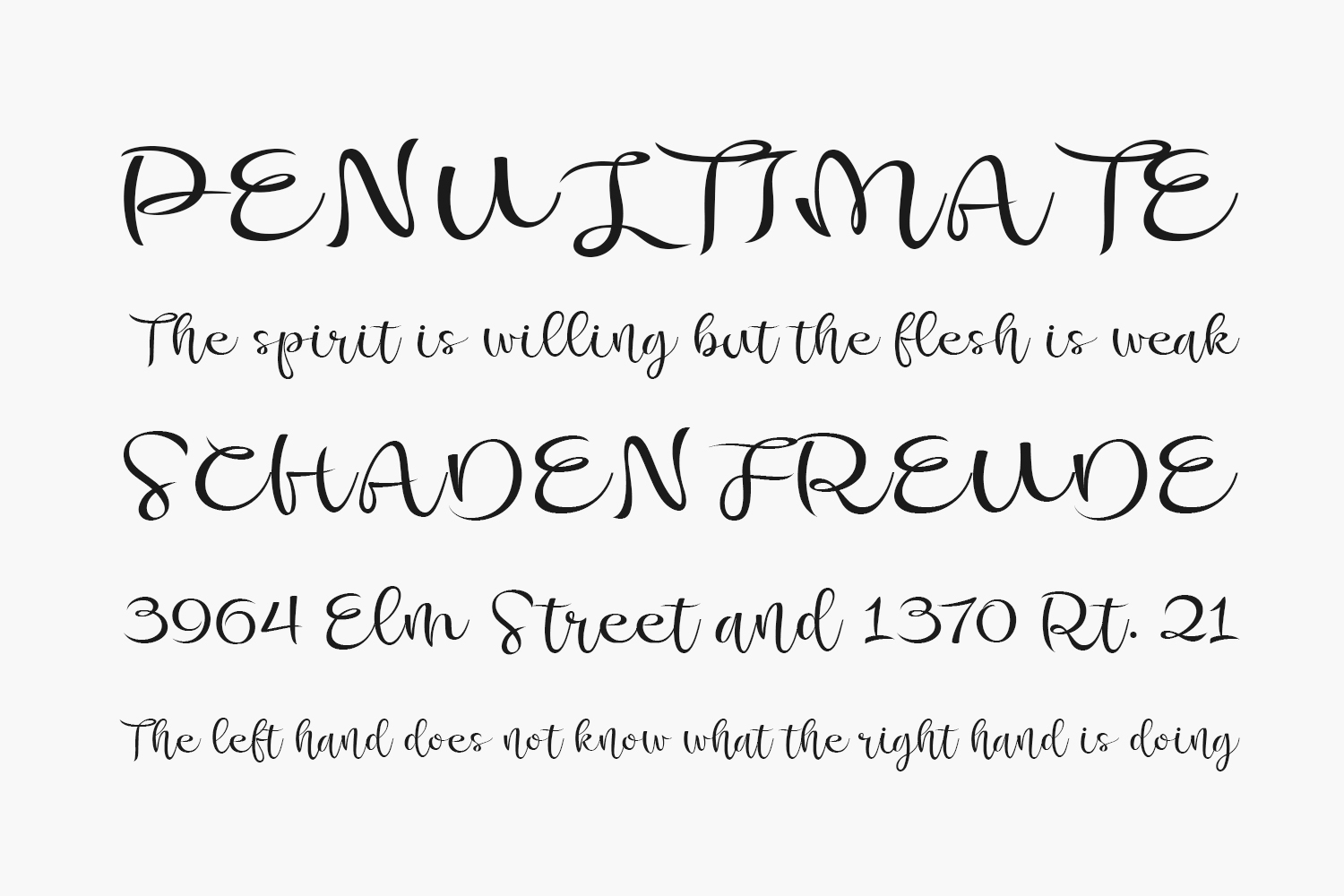
Bonoligt Free Font is a lovely script font featuring charming, playful characters that seem to dance along the baseline. Bonoligt Free Font was designed by Alit Design and is free for personal use only. Please purchase the full version for commercial use.